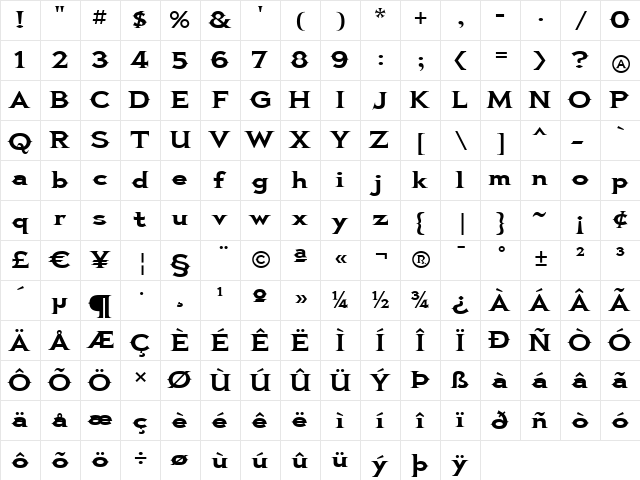
Diego Bold
| Foundry | Dilworth Typographics Inc. |
| Designer | Silas Dilworth |
Design Context for Diego Typeface
Diego offers clean, dependable letterforms without strong stylistic allegiance, making it a practical choice for designers who need flexibility. Its bold stroke weight gives it real presence on the page.